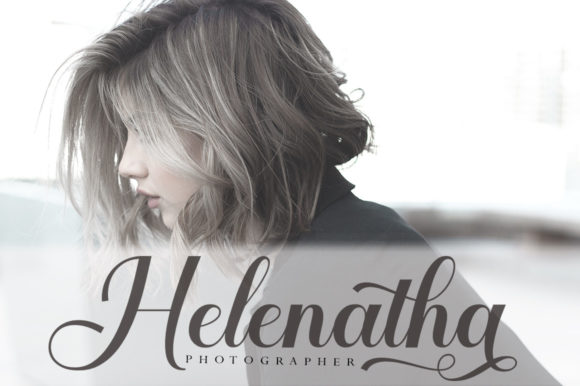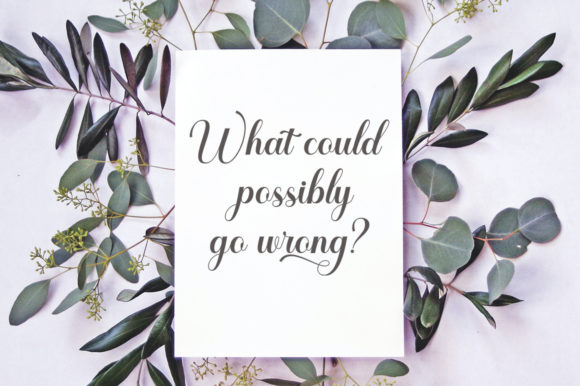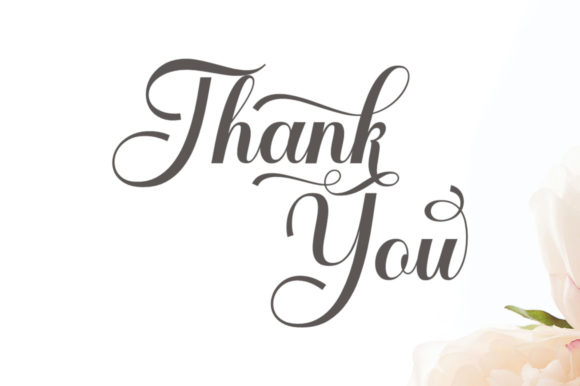
The Elegance of Anamelia Font: A Designer’s Delight
I still remember the project that led me to discover the stunning Anamelia Script font. I was working on a wedding invitation design, and my client was adamant about finding a font that exuded classic elegance. I scoured the internet, tried out numerous fonts, but nothing seemed to fit the bill. That was until I stumbled upon Anamelia Script. Its beautiful, flowing lines and classic style instantly won me over, and I knew I had found the perfect fit for my project.
An Honest Review of Anamelia Script
- ✨ Elegant and classic design, perfect for formal events and projects
- ✅ Highly versatile, suitable for a wide range of design applications
- 💫 Beautifully crafted to work in harmony, ensuring a cohesive look
- 🎨 Supports OpenType features, allowing for creative freedom
While Anamelia Script is an exceptional font, there are a few minor quirks to be aware of:
- ⚠️ Some users may find the font requires a bit of adjustment to get used to, especially when working with longer texts
- 🤔 Limited availability of certain characters or glyphs, which may require additional design workarounds
The Designer Inspiration Behind Anamelia Script
Anamelia Script was inspired by the beautiful handwriting found in ancient manuscripts. The designer aimed to capture the essence of these classic texts and translate it into a modern, usable font. By carefully crafting each letter and character, the designer ensured that Anamelia Script would be both elegant and versatile.
Q: What makes Anamelia Script suitable for formal events?
A: Anamelia Script’s classic and elegant design makes it perfect for formal events like weddings, galas, and other sophisticated gatherings.
Q: Can I use Anamelia Script for my business branding?
A: Absolutely! Anamelia Script’s luxurious feel makes it an excellent choice for business branding, especially for companies that want to convey sophistication and elegance.
Q: Is Anamelia Script difficult to read?
A: While Anamelia Script is a script font, it is designed to be legible. However, as with any script font, it may be more challenging to read in large blocks of text or at small sizes.
Q: Can I use Anamelia Script for my book cover design?
A: Yes! Anamelia Script’s classic and elegant design makes it an excellent choice for book covers, especially for genres like romance, historical fiction, or non-fiction.